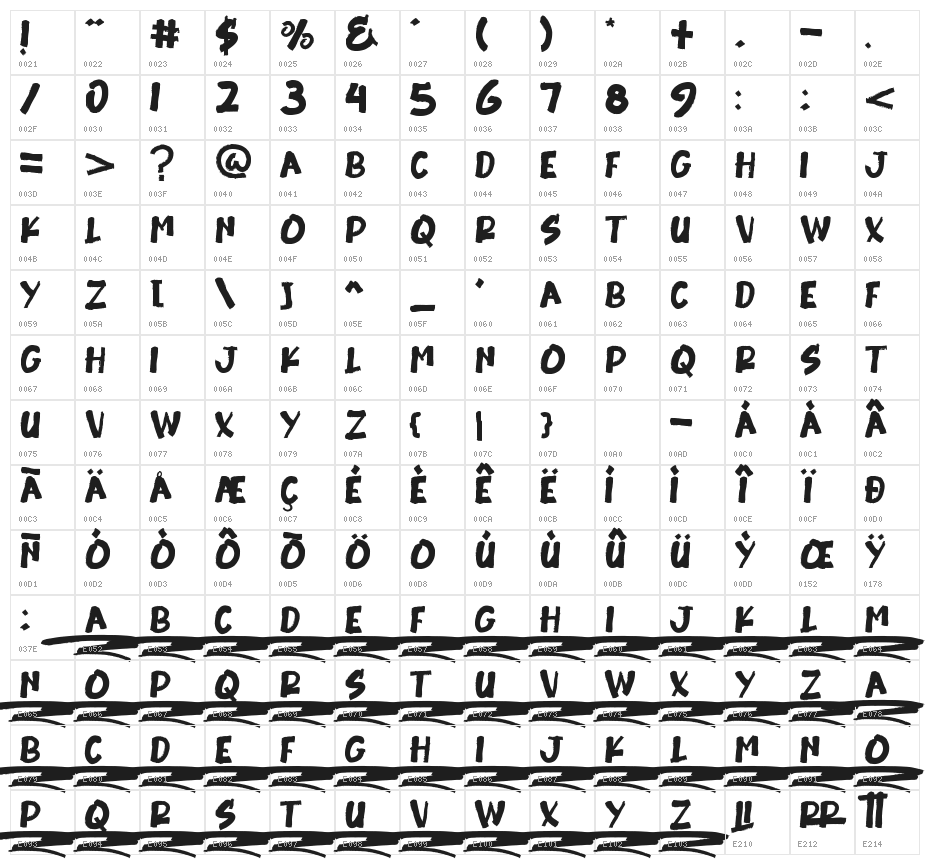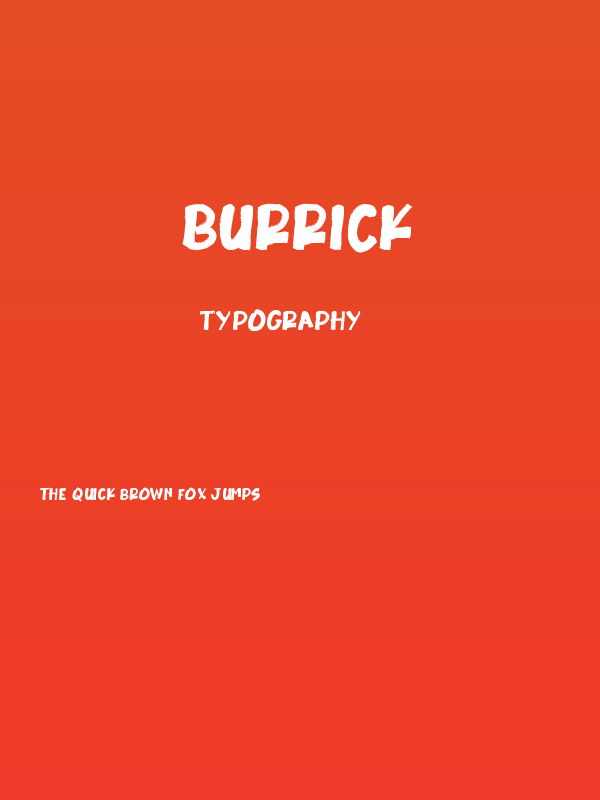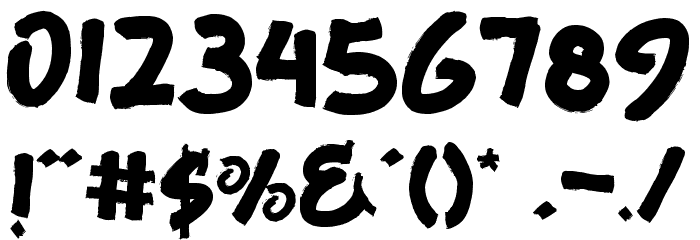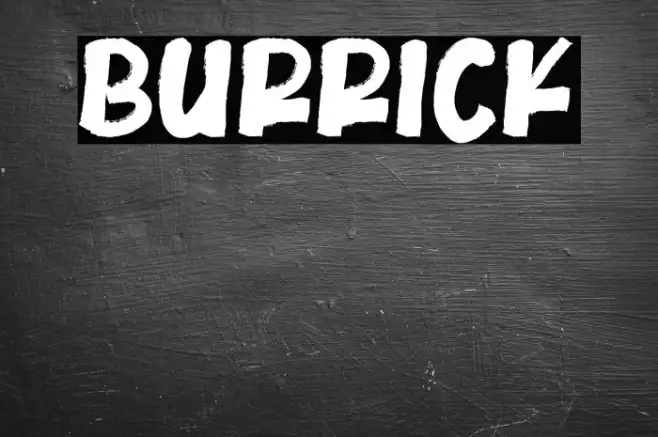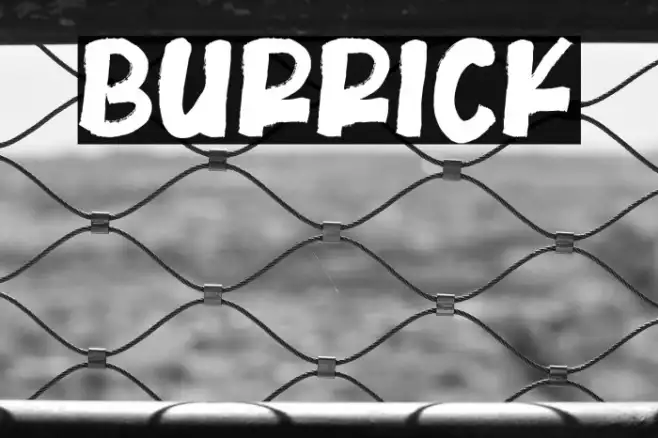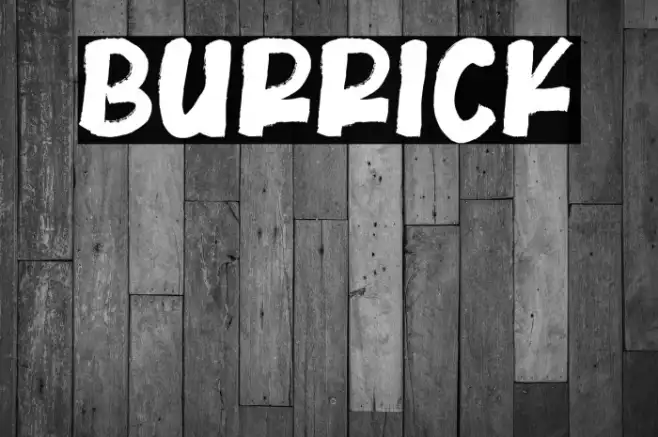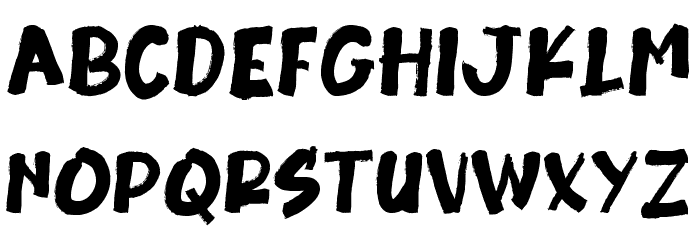
Burrick Font
Burrick Description
This font exudes a bold and energetic style, characterized by its brush-like strokes and dynamic presence. The letters are crafted with a sense of movement, giving them a lively and informal appearance. The uppercase and lowercase letters maintain a consistent weight, creating a cohesive look across the alphabet. Numbers and special characters are equally expressive, adding to the font's versatility. The overall design is reminiscent of hand-painted signage, making it ideal for projects that require a personal and artistic touch.
| Overall Style | Artistic, Energetic |
| Proposed Projects | Perfect for posters, branding, packaging, and any project that requires a bold, artistic flair. |